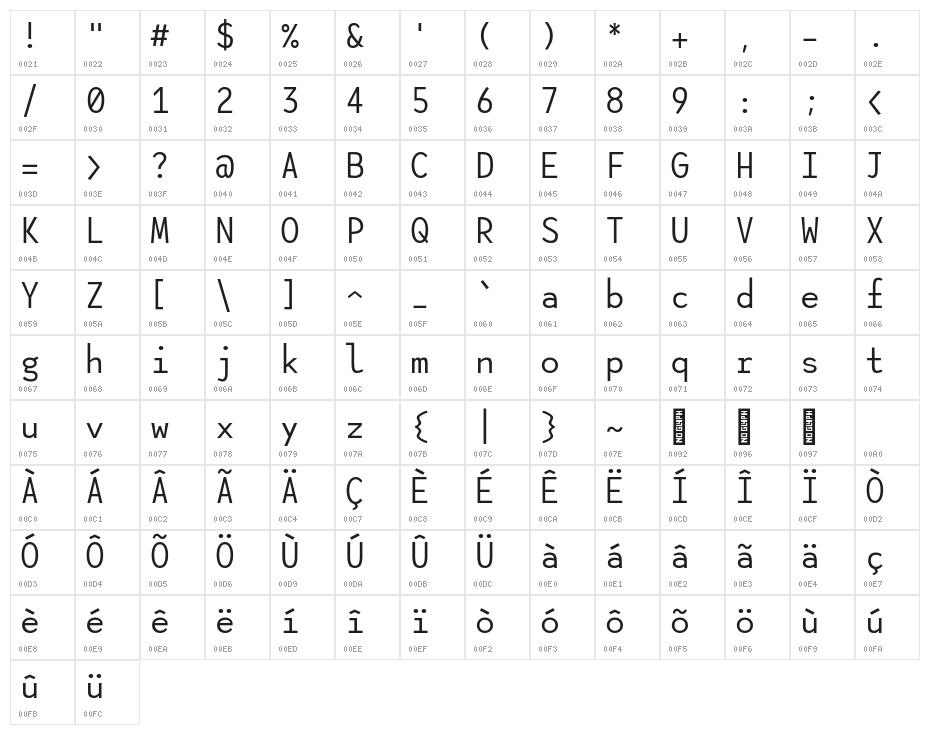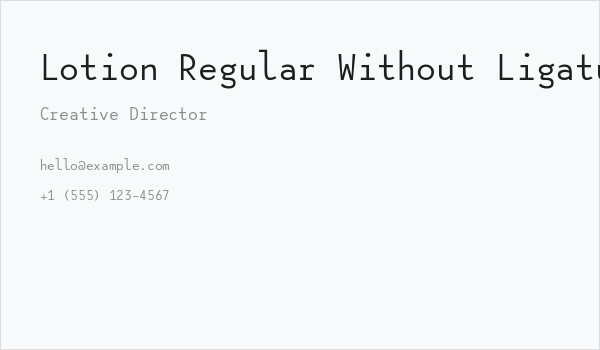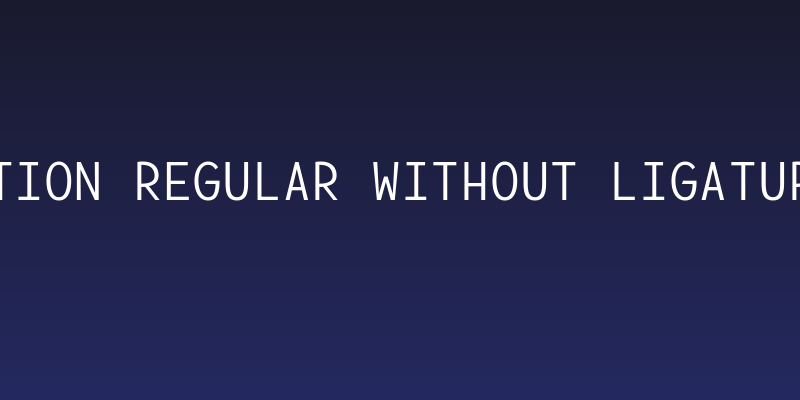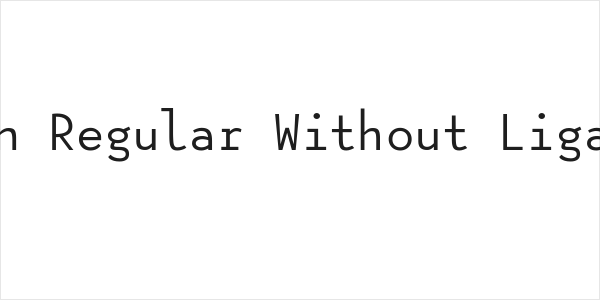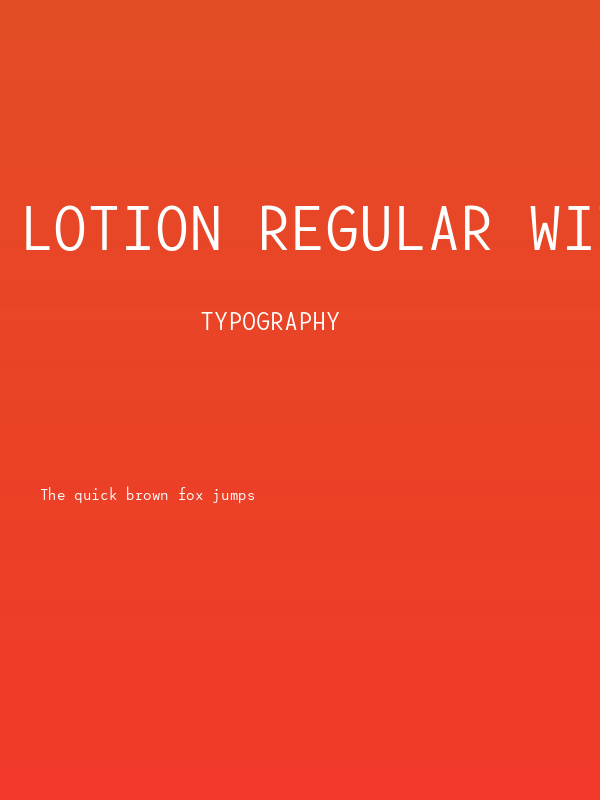
Lotion Regular Without Ligatures Font
✎ Sans Serif
| حالة الاستخدام | Headlines, Body text, Logos |
| مشاريع مقترحة | Ideal for branding, web design, editorial layouts, and signage due to its clarity and modern appeal. |